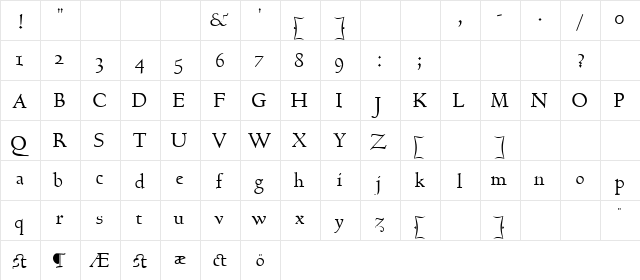
GoundyHundred Italic
Design Context for GoundyHundred Typeface
GoundyHundred takes a measured approach to typography — its balanced proportions and neutral character make it a reliable workhorse for both digital and print work. Its italic angle brings a sense of urgency and motion to the letterforms.
Pro Tip: Try GoundyHundred for annotation and caption copy alongside an upright companion — the contrast in angle creates a dynamic but ordered typographic system.